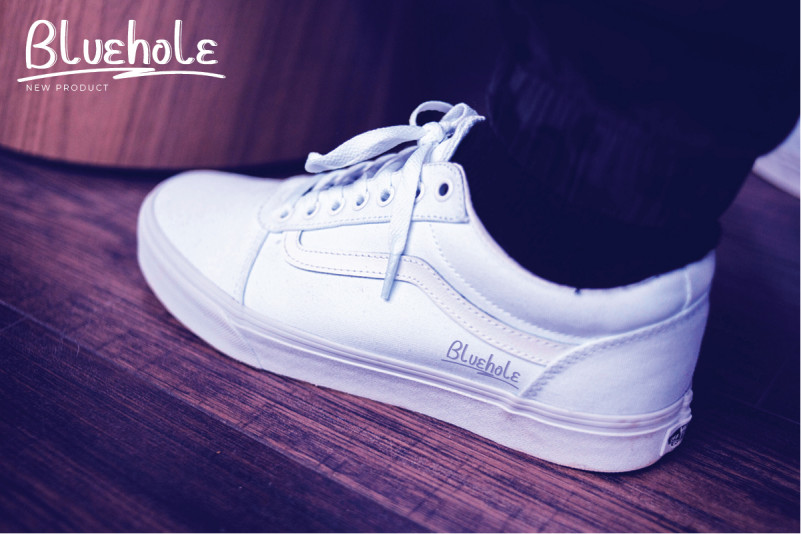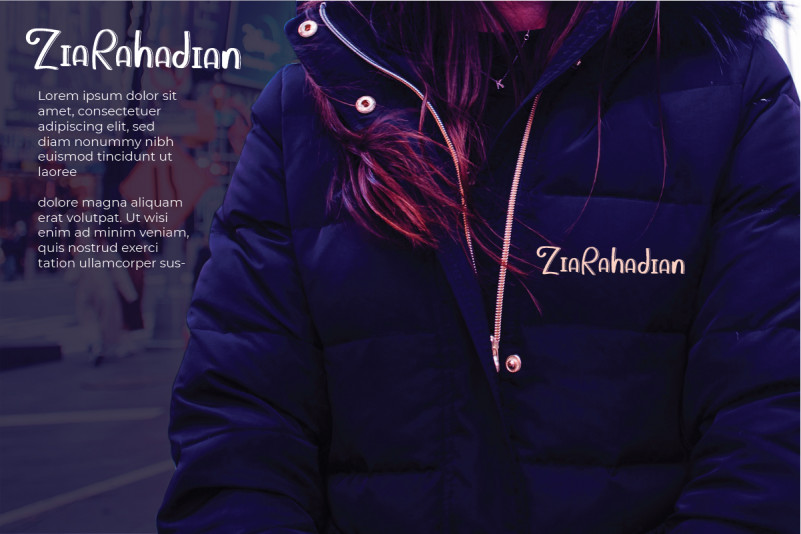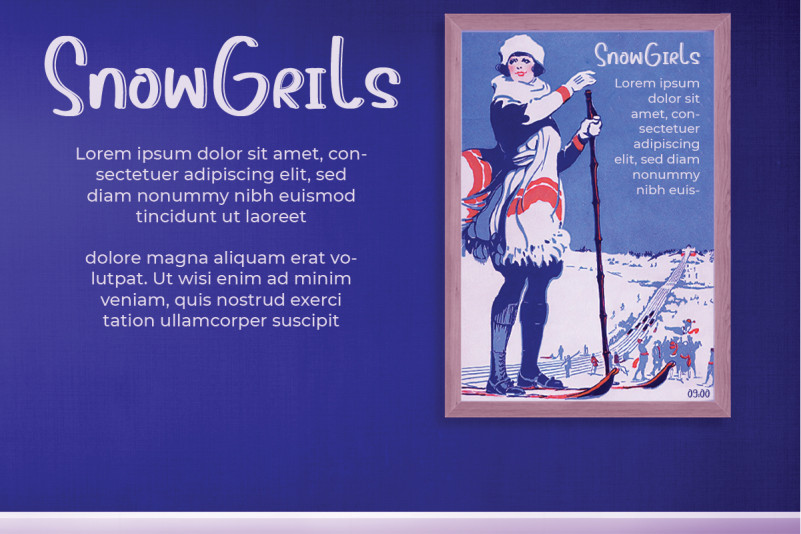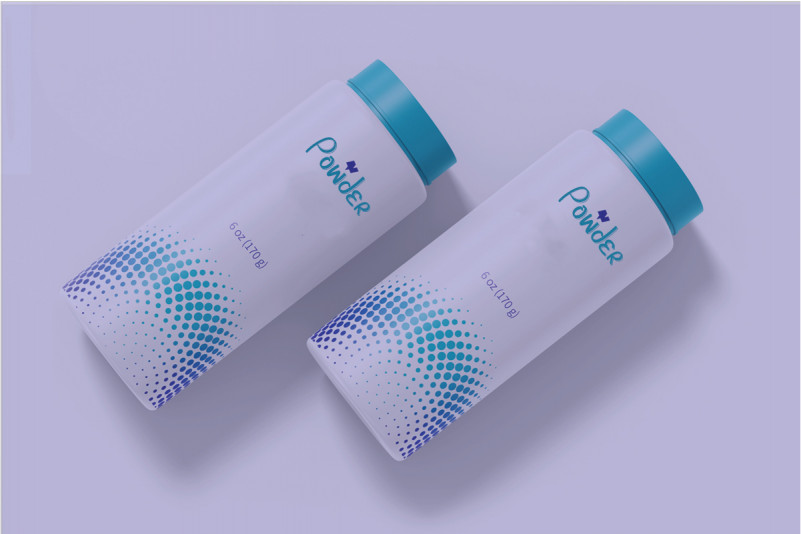
Hangstand Font
Hangstand Display Font
Thisis a unique Handwriting display font by calligraphyfonts.net. It can be used for many purpose from Fun things to Brandings. The Hangstand Font will be awesome for clothing, events, cosmetic, beauty, spa, brands, packaging, invitation, games. etc